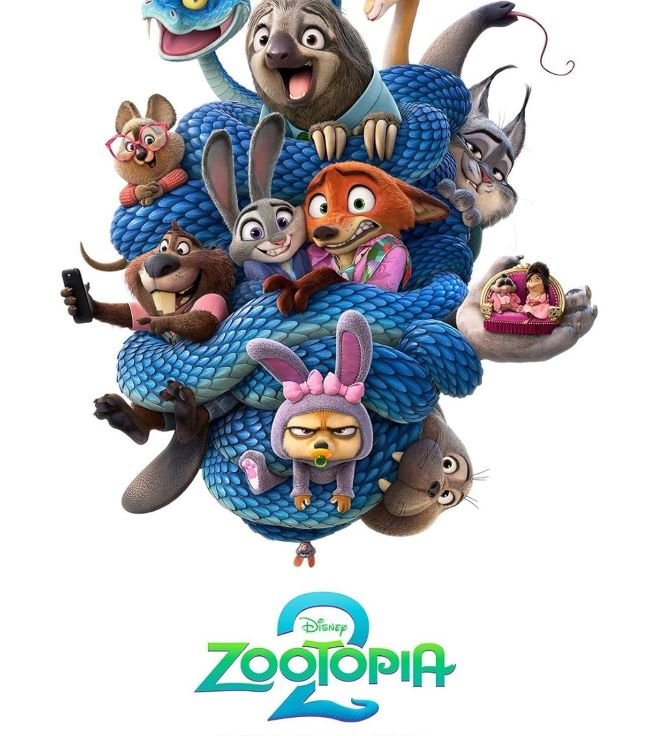
Zootopia 2 font carries forward the visual DNA of Disney’s 2016 original with a rounded font, customised sans-serif that communicates the warmth, energy, and inclusive spirit of a city built entirely on the premise that all mammals can live together — bold enough to be visible from across a multiplex lobby, friendly enough that a small child would not feel intimidated by it, and contemporary enough to feel like a modern streaming-era property rather than a legacy franchise coasting on nostalgia.
The smooth curves and vibrant character of the lettering echo the film’s chromatic world of distinct districts and animal-specific architecture, maintaining brand continuity while marking the sequel as its own entry. The freely available Zootopia 2 Font brings this approachable, family-animation energy to creative projects.